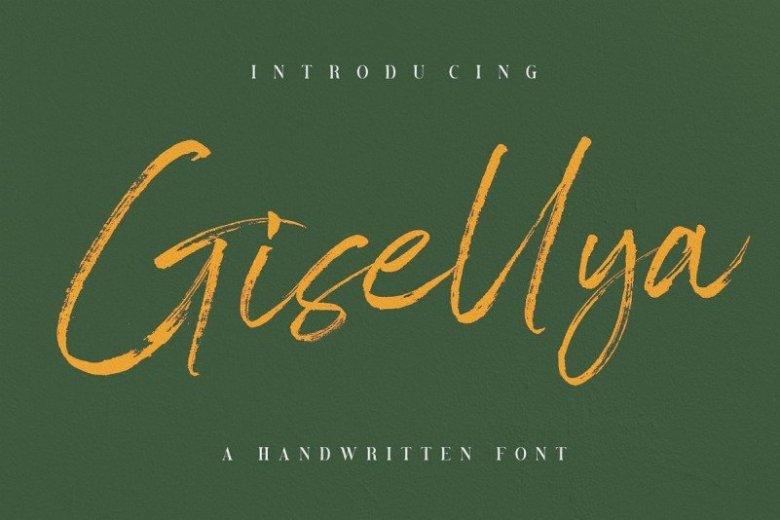
Gisellya Brush Font Free
Gisellya Brush Font is a modern handwritten font that feels beautiful classy, elegant, and modern. It’s a lovingly handwritten brush script , with an air of grace and flamboyancy.
Serendipity is special in that one word can be written in a million different ways – thanks to the large selection of extra letters that it has built in. All for you to play with, and make your words look exactly how you need them to look.